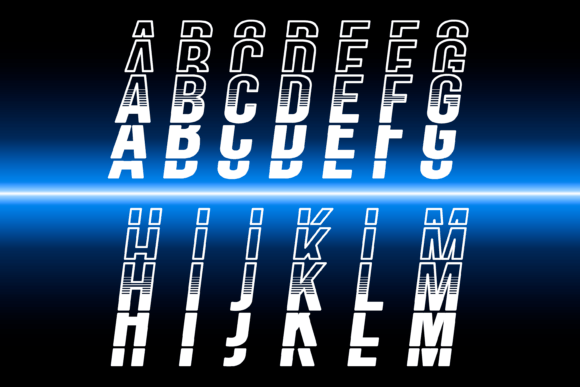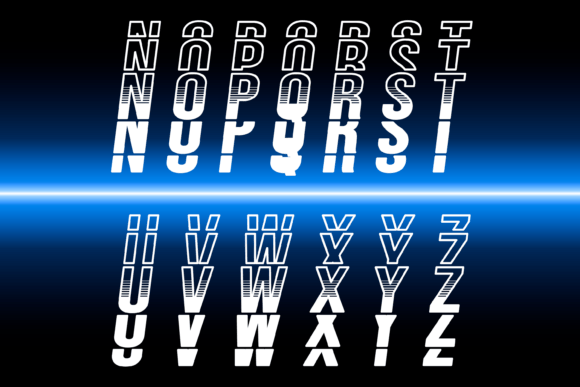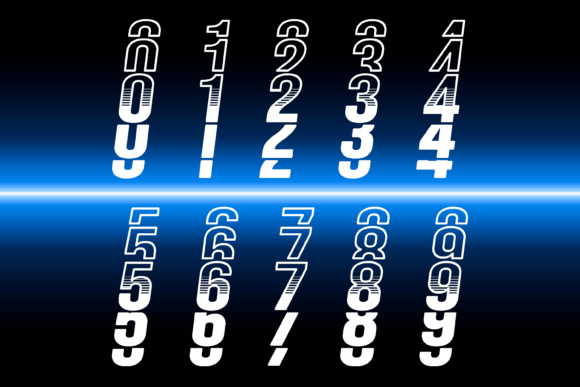
Discover the Unique Charm of Contra Font: Elevate Your Designs with Style
Contra is an incredibly cool display font. Whether you use it for custom designs, DIY crafts, or just any creation that requires a lovely touch, this font will be an amazing choice. Its distinctive style and versatility make it a must-have for designers and crafters looking to add a personal touch to their projects.
What Makes Contra Font Stand Out?
Contra font boasts a unique design that sets it apart from other display fonts. Its elegant and sophisticated look makes it perfect for a wide range of applications, from branding and advertising to crafting and scrapbooking. The font’s versatility allows it to be used in various contexts, making it a valuable addition to any designer’s or crafter’s toolkit.
Key Features of Contra Font
- Unique Design: Contra font features a distinctive design that is both elegant and sophisticated.
- Versatility: The font can be used in various contexts, from digital designs to DIY crafts.
- Easy to Read: Despite its unique design, Contra font remains easy to read, making it perfect for use in titles, headings, and other display text.
- High-Quality: The font is designed with high-quality in mind, ensuring that it looks great in any application.
Uses for Contra Font
Contra font is incredibly versatile, making it suitable for a wide range of applications. Here are some ideas to get you started:
- Custom Designs: Use Contra font to add a personal touch to your custom designs, such as logos, branding materials, and advertisements.
- DIY Crafts: Add a touch of elegance to your DIY crafts, such as scrapbooking, card making, and other paper crafts.
- Digital Art: Use Contra font to add text to your digital art, such as illustrations, graphics, and other visual designs.
- Signage: Contra font is perfect for use in signage, such as store signs, event signs, and other display text.
Tips for Using Contra Font
To get the most out of Contra font, here are some tips to keep in mind:
- Use it sparingly: Contra font is a display font, so it’s best to use it sparingly to add emphasis and visual interest to your designs.
- Pair it with other fonts: Contra font pairs well with other fonts, so don’t be afraid to experiment with different combinations to find the perfect look for your design.
- Experiment with colors: Contra font looks great in a variety of colors, so don’t be afraid to experiment with different colors to find the perfect look for your design.
Contra font is an incredibly cool display font that is sure to elevate your designs with style. Its unique design, versatility, and high-quality make it a must-have for designers and crafters looking to add a personal touch to their projects. With its wide range of applications and ease of use, Contra font is a valuable addition to any designer’s or crafter’s toolkit.